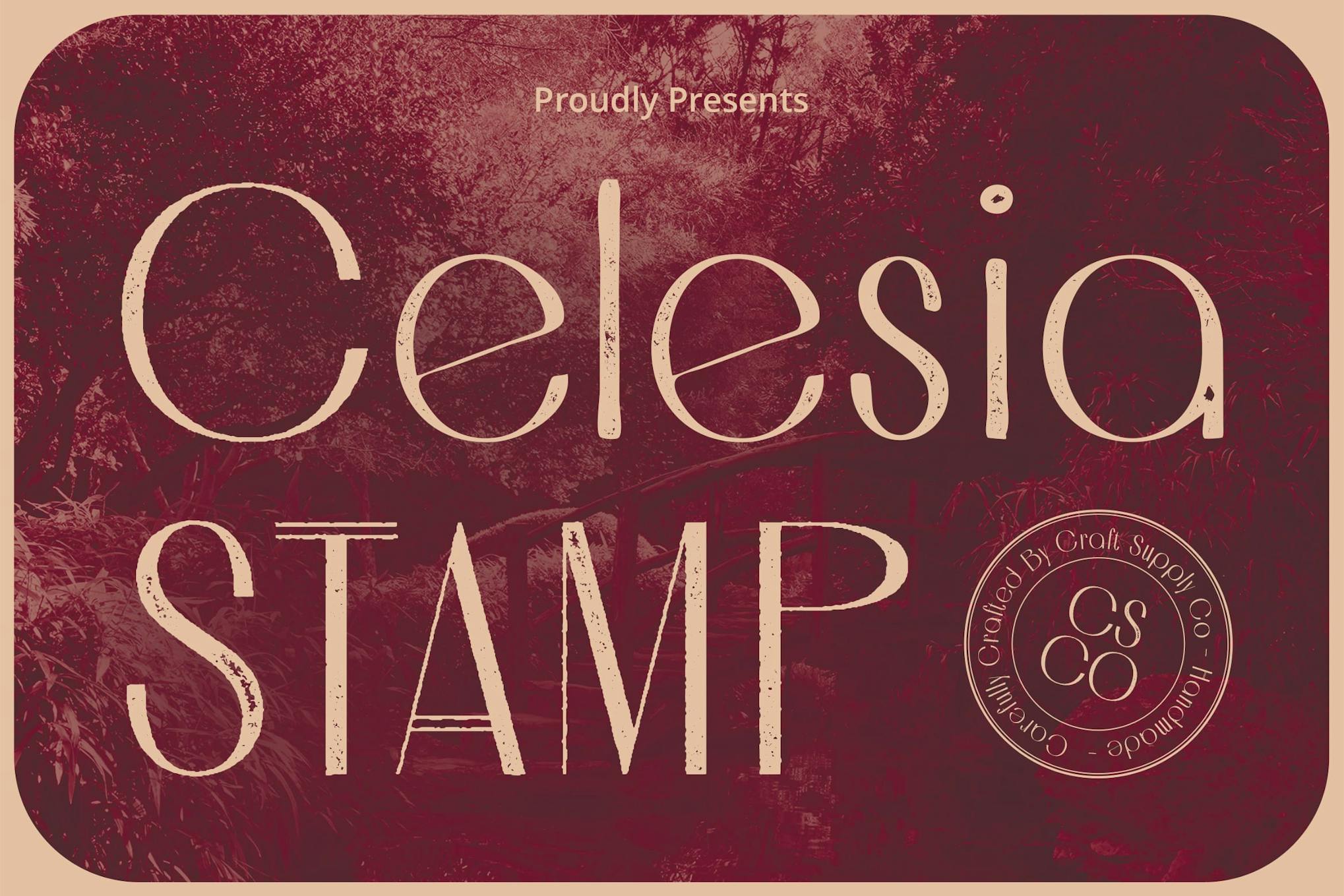
Celesia Stamp Font
Perfect for vintage logos, packaging, posters, branding, social media graphics, and product labels.
The Celesia Stamp Font excites designers with its authentic stamped texture and bold, distressed letterforms that give any design a handcrafted, vintage vibe.
The Celesia Stamp Font Free Download is a unique typeface designed to bring a rugged, tactile feel to your creative projects. Its textured edges and worn look replicate the charm of old rubber stamps, making it perfect for brands and designs that want to evoke nostalgia and authenticity. Whether you’re working on packaging, posters, or branding, Celesia Stamp delivers a memorable, strong presence.
One of the standout features of Celesia Stamp Font is its perfect balance between rugged texture and readability. Despite its distressed style, it remains clear and impactful for headlines and display text, ensuring your message resonates powerfully.
In branding, Celesia Stamp conveys vintage charm, trustworthiness, and handcrafted quality. It pairs beautifully with earthy color palettes, textured backgrounds, and classic design elements, helping brands create a nostalgic yet bold identity.
For digital use, this font enhances website banners, social media posts, and promotional materials with its unique stamped style. Its authentic appearance ensures your digital content stands out with personality and depth.